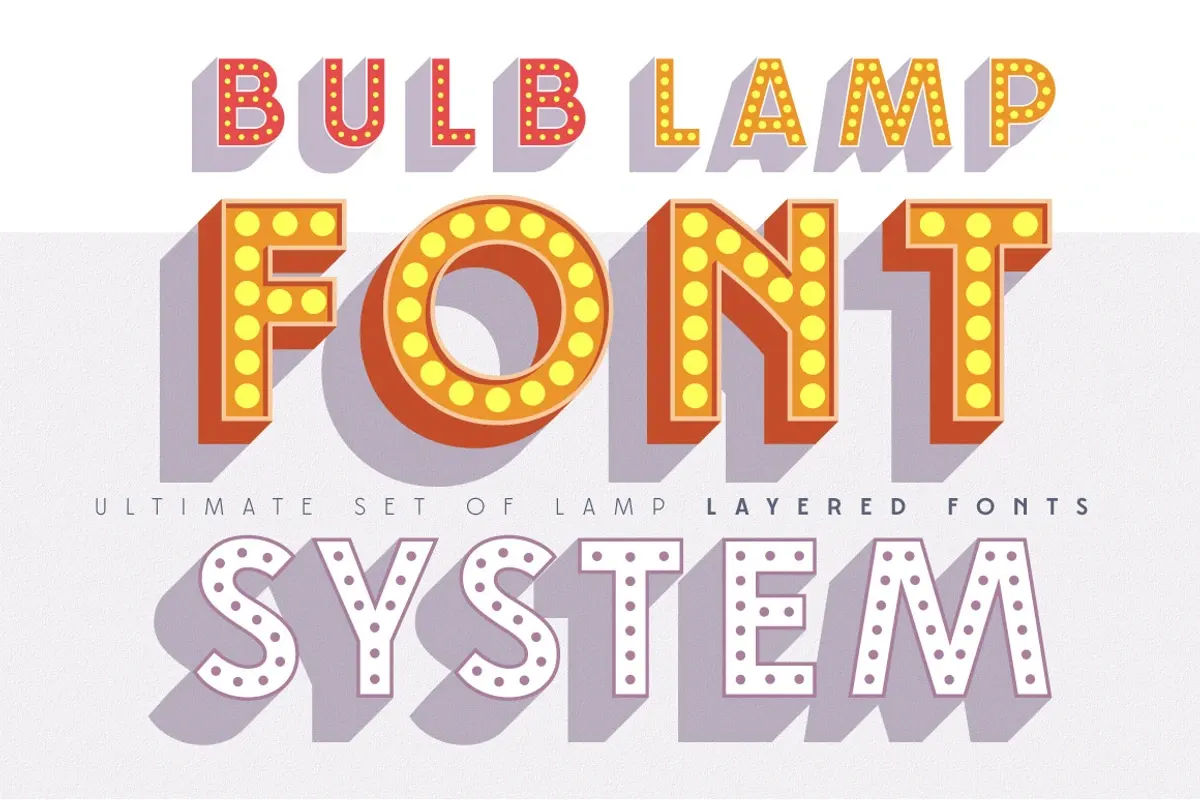
Please note, you must purchase this font for commercial use. However, you can easily download Layered Font Set 3D Bulb Lamp Free Download for personal use and testing purposes. Layered Font Set 3D Bulb Lamp is a unique and creative font designed to mimic the appearance of illuminated bulb lights, perfect for adding a retro, vintage, or industrial touch to your designs. The layered structure allows you to easily create 3D effects and highlights, making it ideal for neon signage, event posters, logos, and any creative project that needs a bold, glowing aesthetic. Whether you're working on a nightclub logo, a movie poster, or a vintage-inspired design, Layered Font Set 3D Bulb Lamp Free Download will give your typography a striking visual appeal. Download Layered Font Set 3D Bulb Lamp Free Download today and explore its potential before opting for a commercial license.